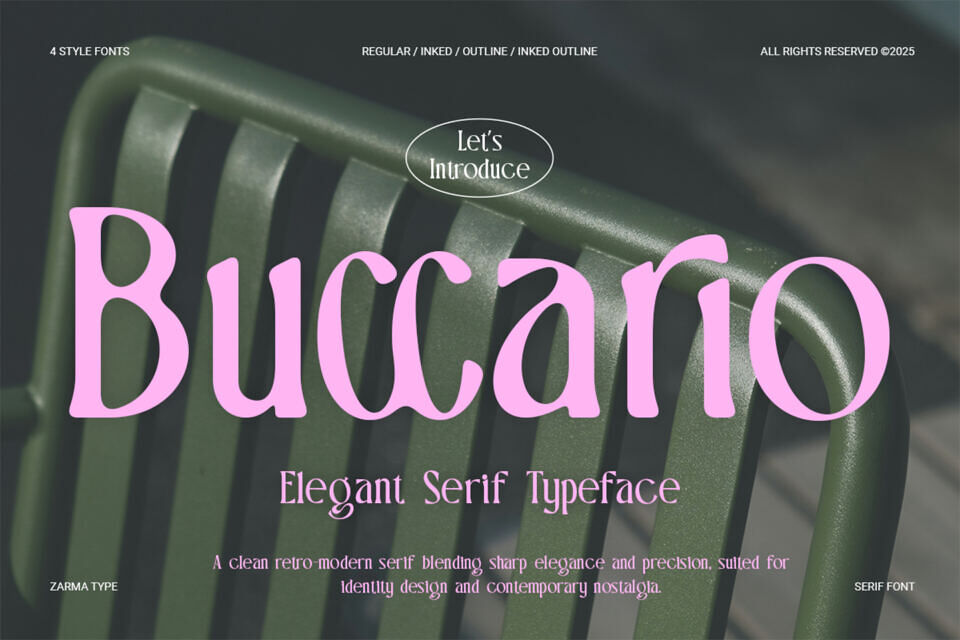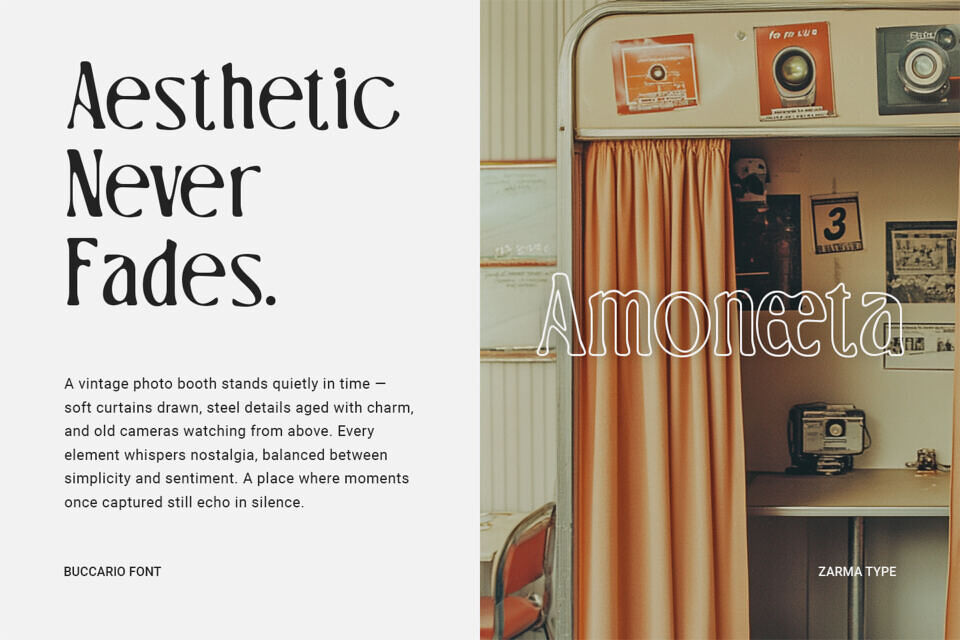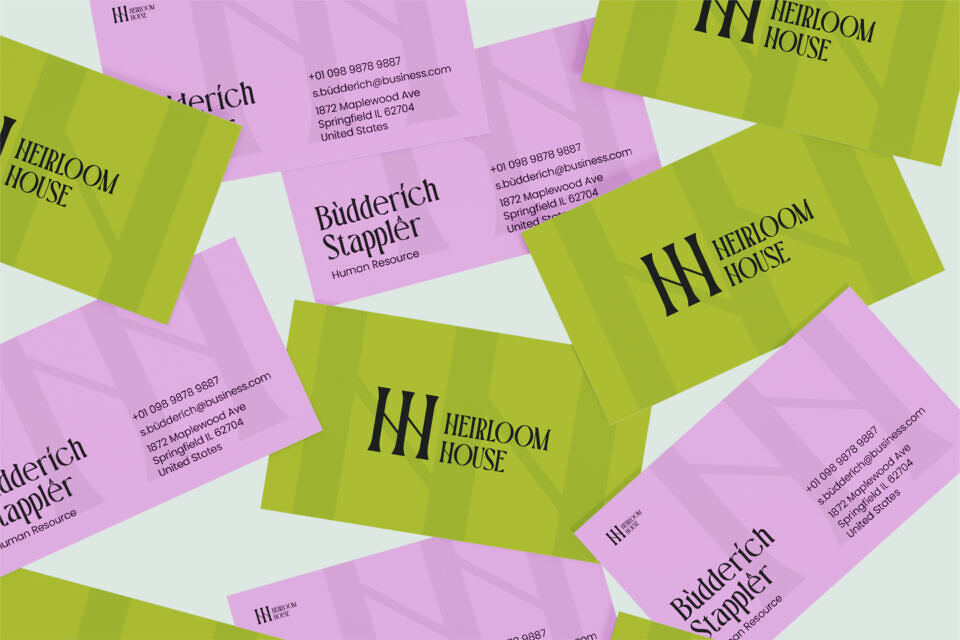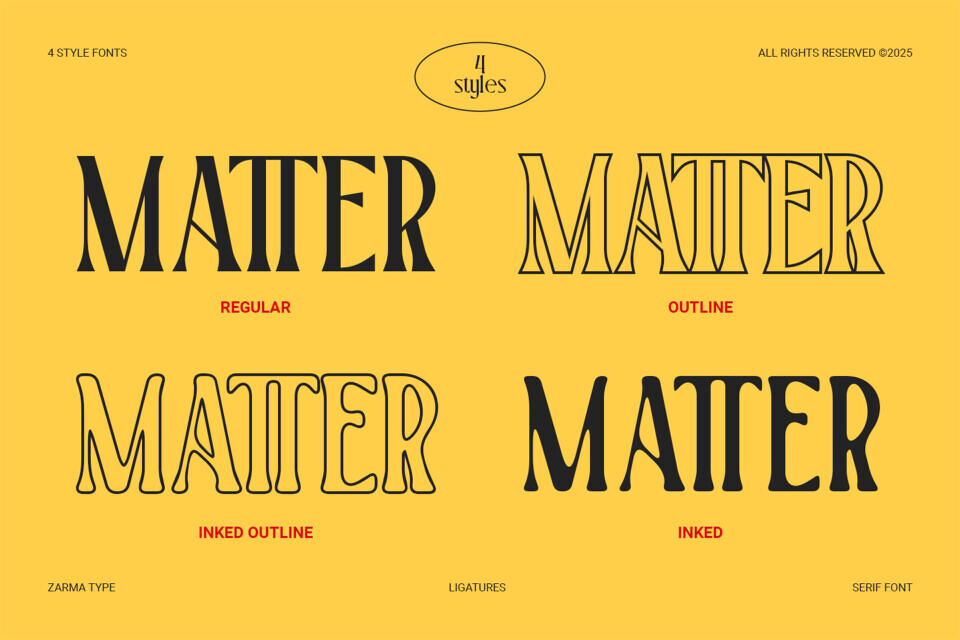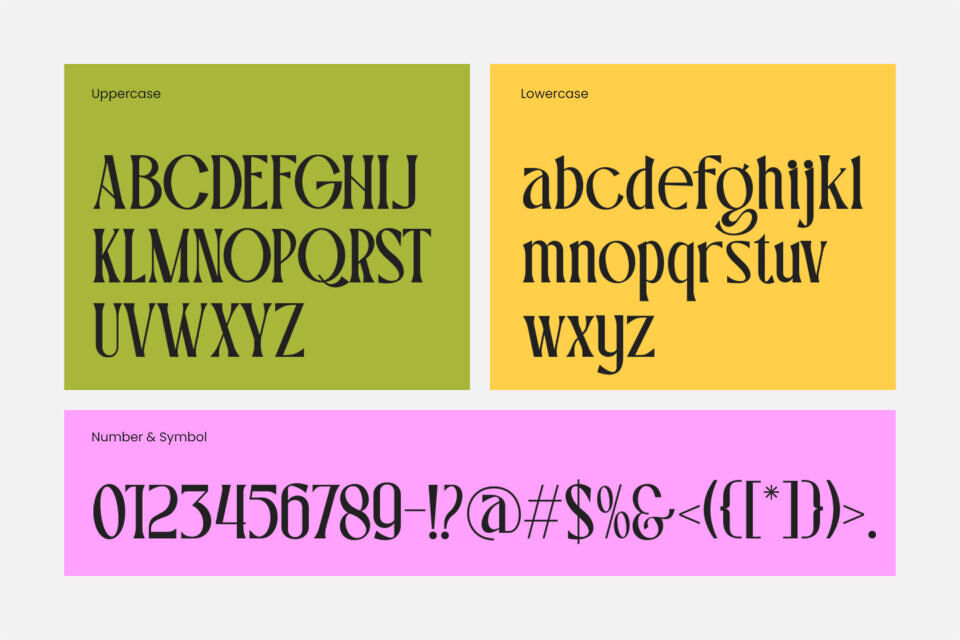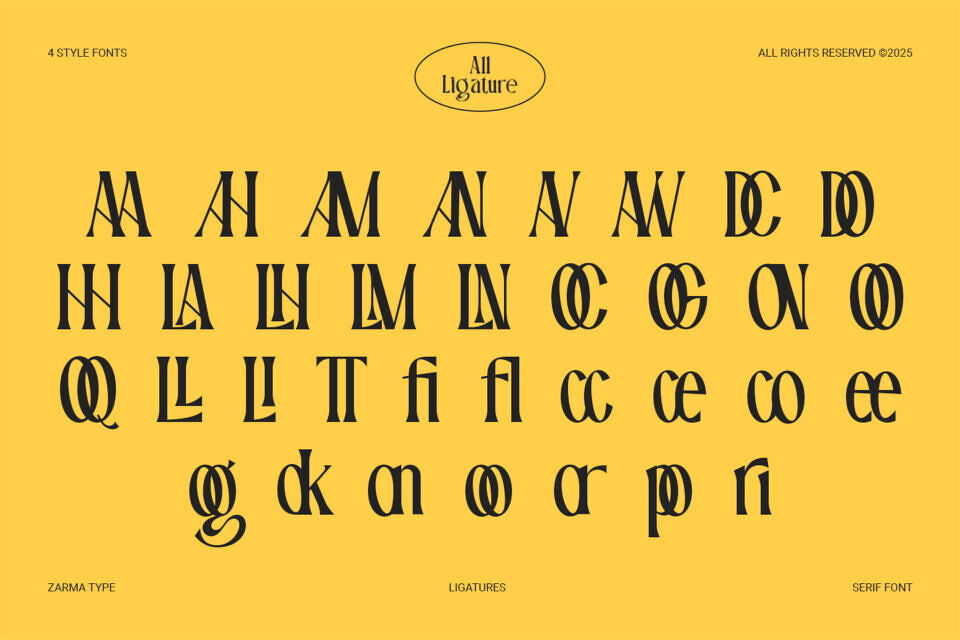
Buccario Font
Buccario is an elegant serif typeface that brings a fresh twist to retro and vintage design trends. With its sophisticated curves, contrast details, and high-legibility structure, Buccario elevates every layout with a sense of refined playfulness.
This typeface draws attention effortlessly, making it ideal for branding projects that demand both beauty and personality. The unique shape of each character invites designers to explore creativity without sacrificing clarity.
Whether used in bold headlines, nostalgic packaging, or stylish editorial spreads, Buccario offers strong character with a soft charm. Designed with contemporary aesthetics in mind, Buccario seamlessly merges classic elegance with modern appeal.